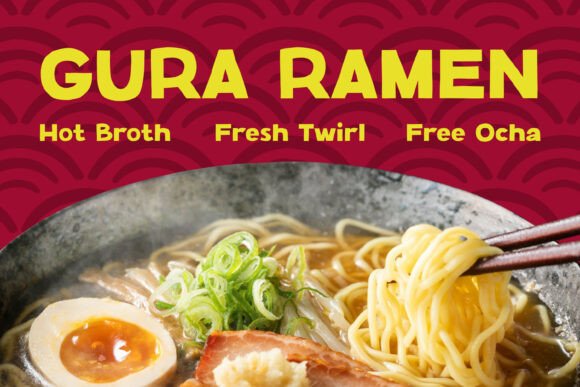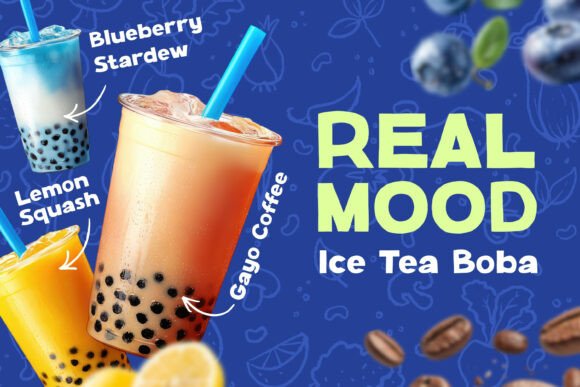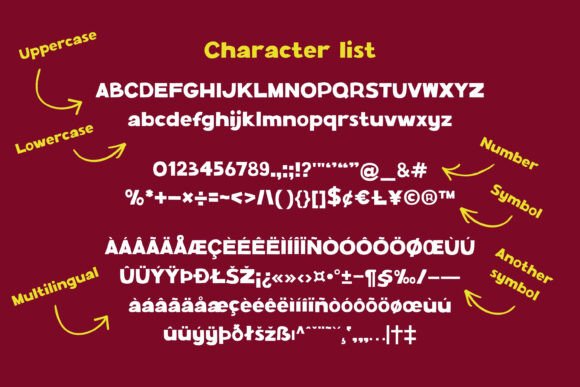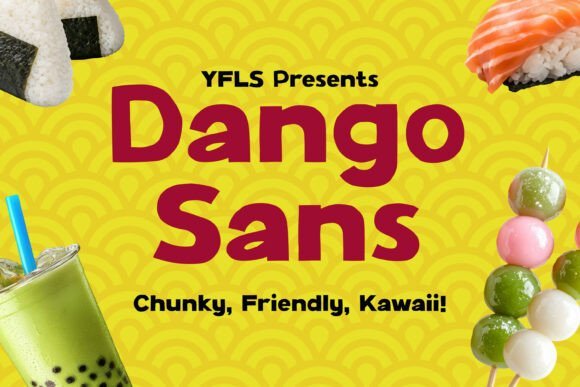
Introduction to Dango Sans Font
Dango Sans is a playful, quirky display font designed to bring warmth and personality to bold visuals.
Its soft rounded forms and chunky weight create a friendly, approachable tone that instantly grabs attention without feeling harsh Perfect for F&B branding, packaging, menu highlights, and promotional materials, Dango Sans helps products feel inviting and memorable.